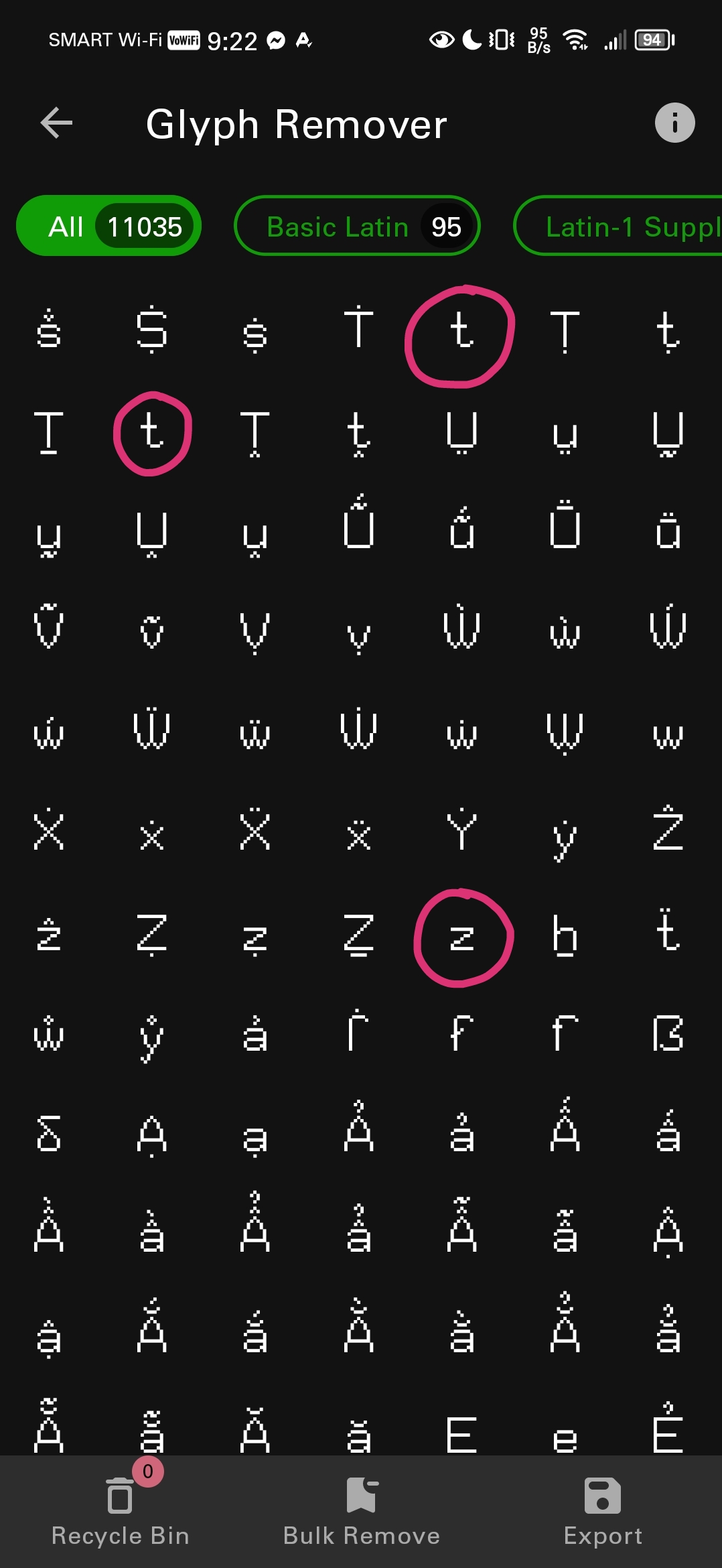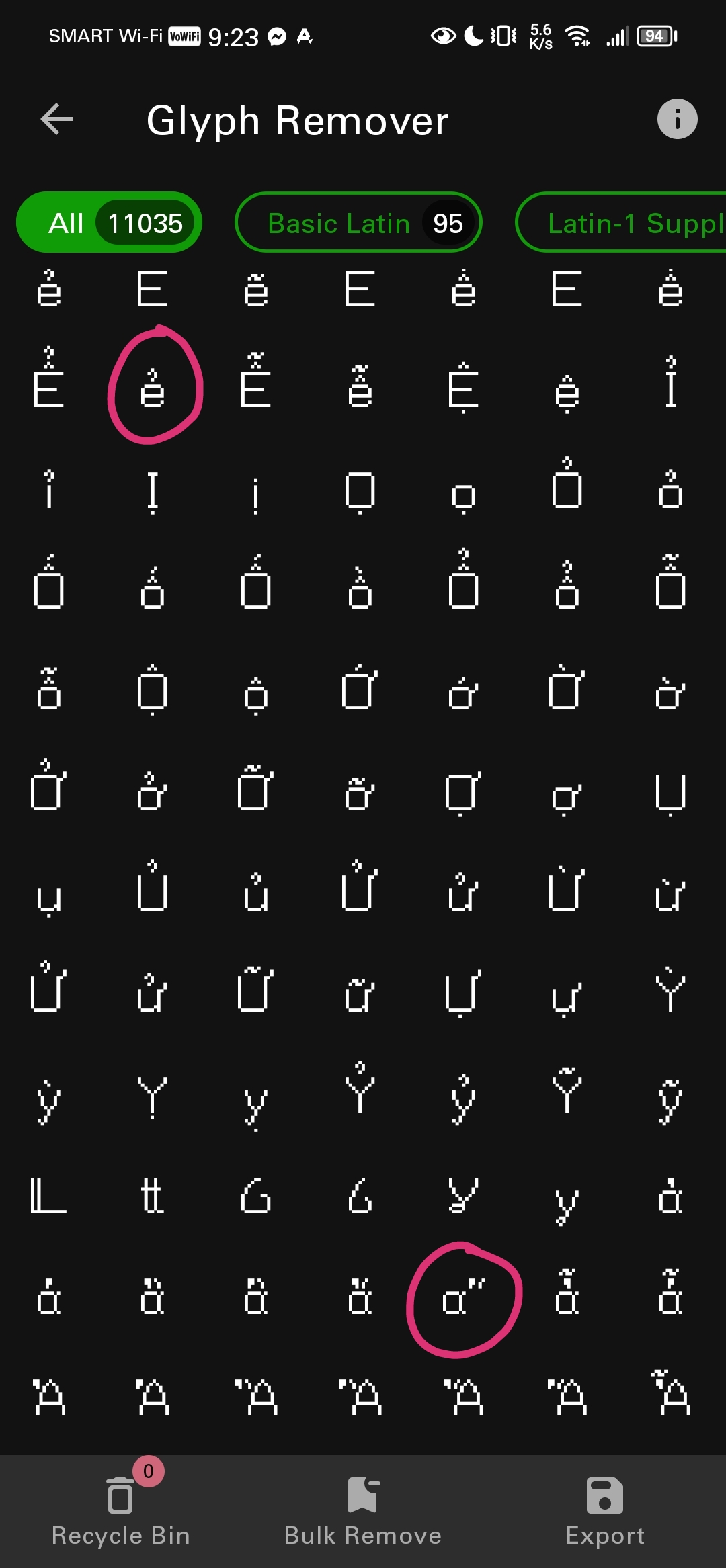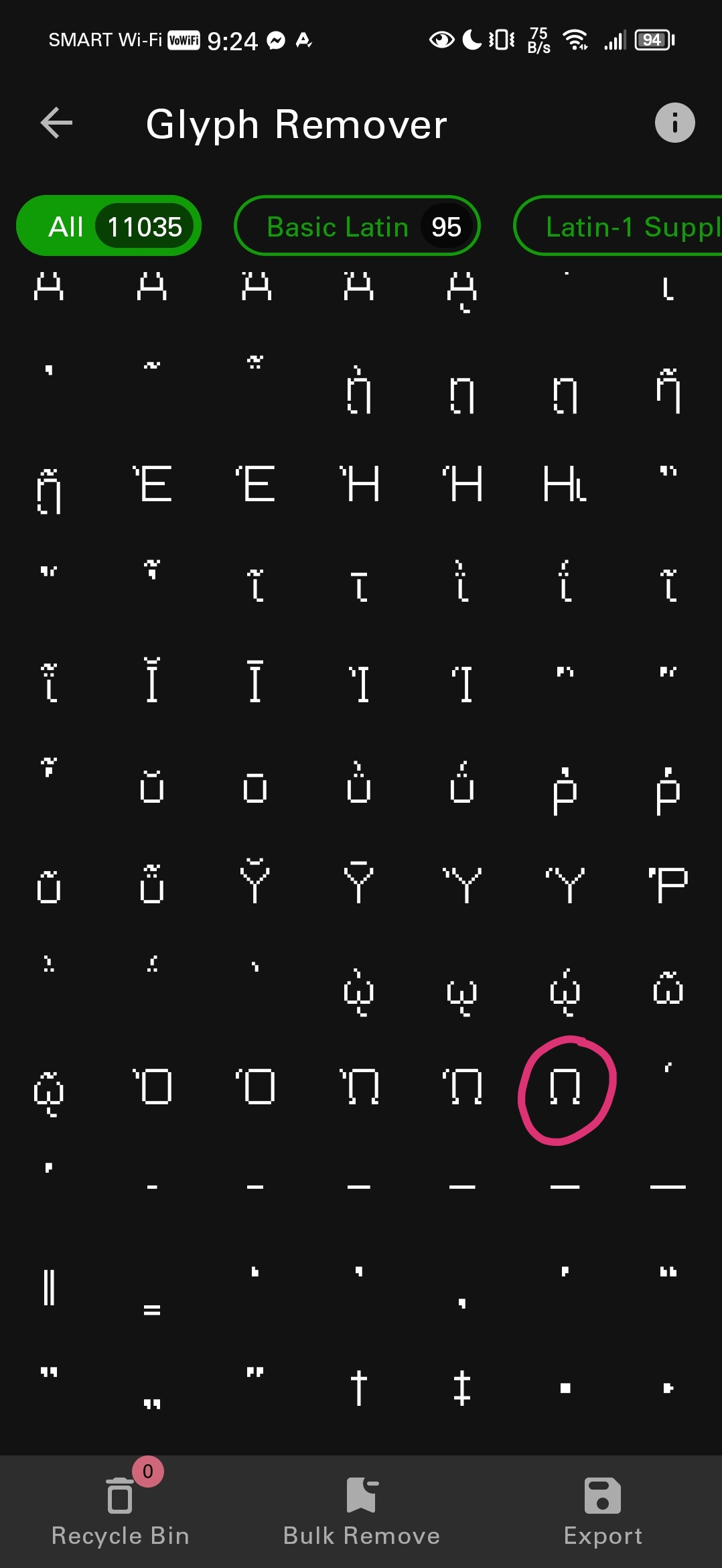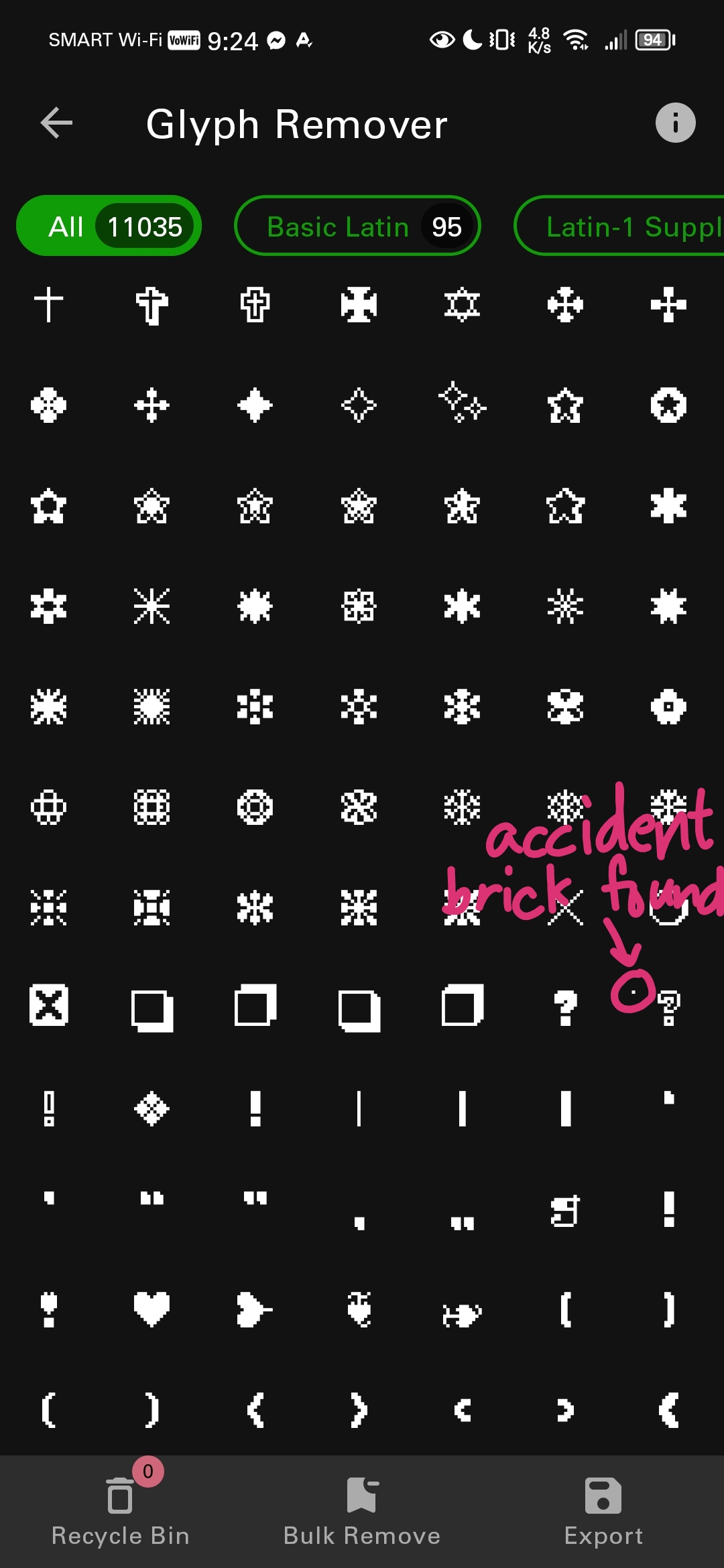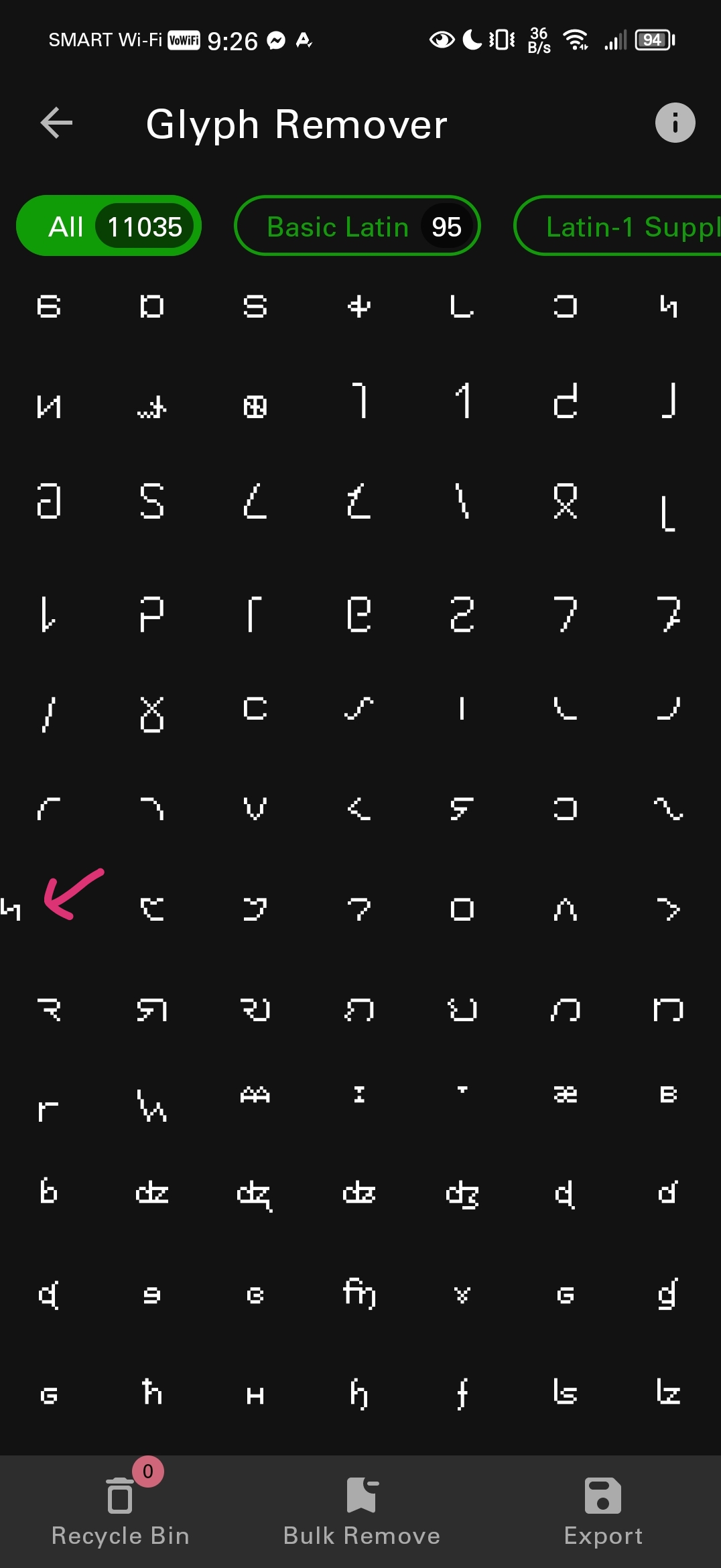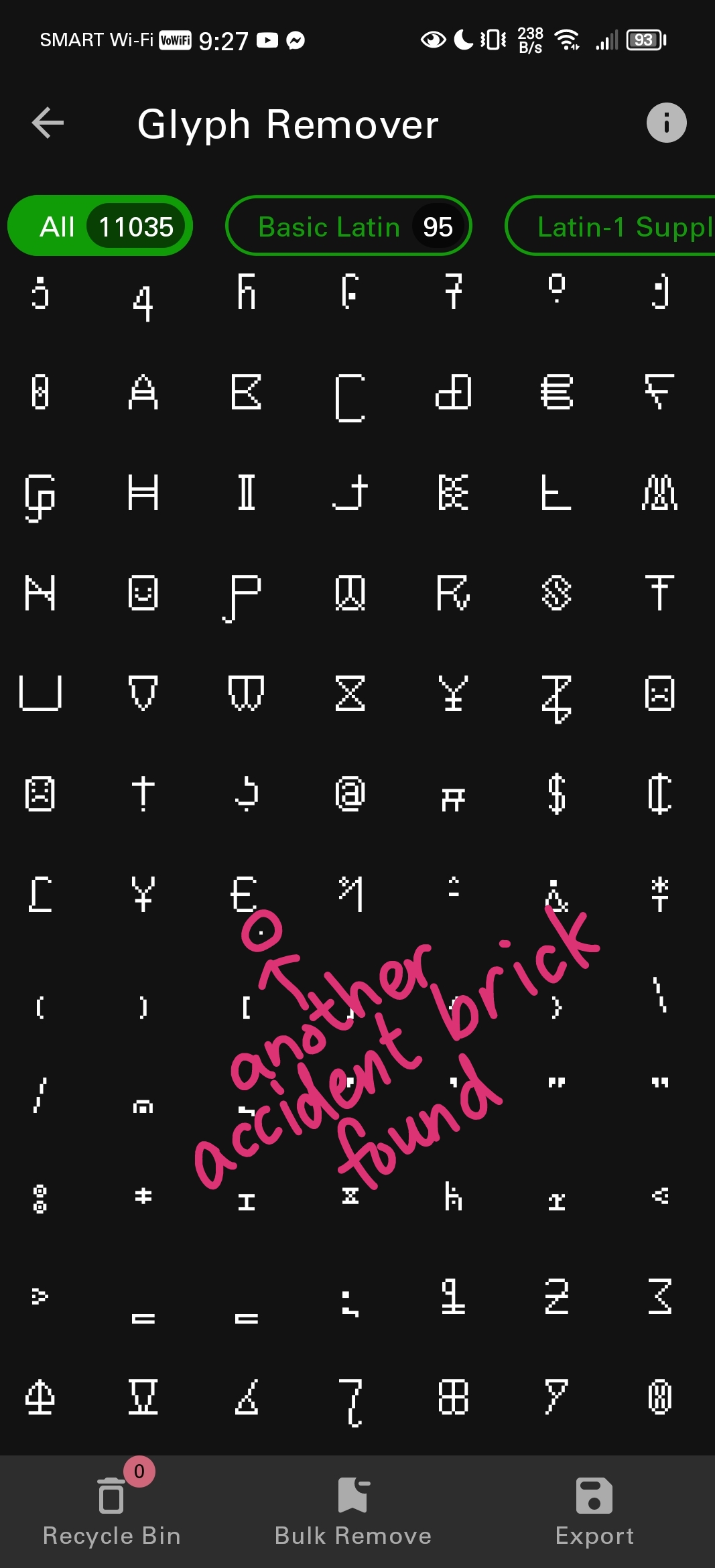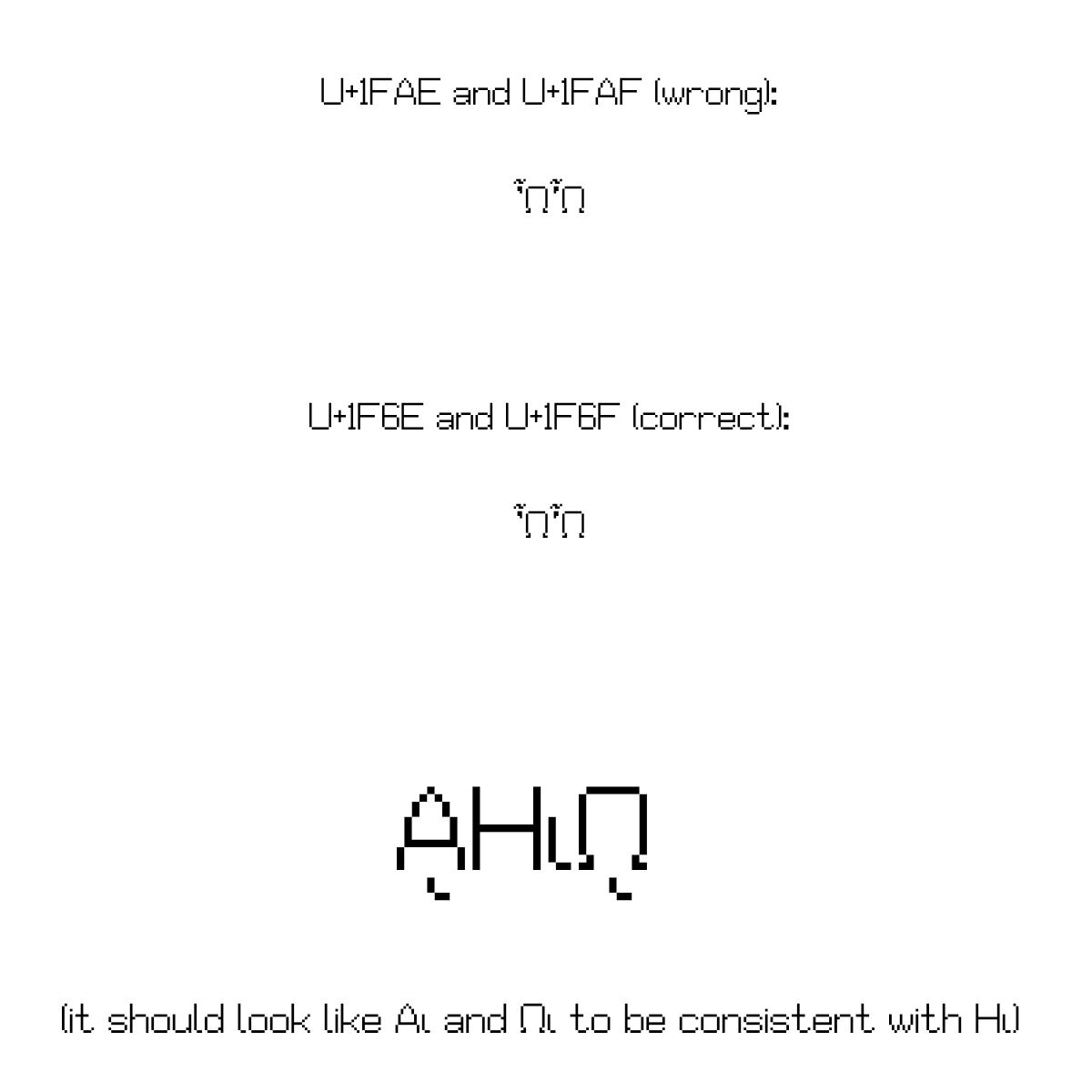
Cherokee
Next: Hebrew and Shavian
Update 3.3: Beria Erfe and Greek Extended
Update 3.5: Shidinn
Nice work on the font. It has versatile language support, like mine, but you're going to do as many symbols as you can. Fonts can have a maximum of 65,535 glyphs, and Unicode cannot fit iinto one font. You can't have a font with 300,000 glyphs, as it is far beyond the limit. That's why probably don't know that fonts are limited to 65,535 glyphs.
understood, but at the same time itll still be a lot
add arrows and miscellaneous technical
Shidinn needs Shilu, Extra Shilu, Shilu from Another Dimension, Supernatural Shilu, Premium Shilu, Shilu from Other Future and Black Soul Shilu.
i found a lot of mistakes in this font
(image #1 (the ones encircled in red are the characters you need to fix)):
aight i fixed it
is there more?
yes
(image #2):
image #3:
i fixed them all
there are 3 remaining mistakes you still need to fix
image #4 (i call stray bricks as accident bricks):
image #5:
image #6 (last one):
i found 2 mistakes in this font. the 1st one is there are 2 wrong characters, U+1FAE and U+1FAF (it should look like Ὧι and Ὦι). the 2nd mistake is the capital alpha and capital omega with prosgegrammenis are not consistent with capital eta with prosgegrammeni
i was using catrinity as a base for the symbols, so that might be the reason why things were inconsistent
i was also looking at the icons of the symbols while i was making them, so i probably just mixed them up
i changed all of the prosgegrammeni symbols to look like the symbols you see in the default font
Add soyombo